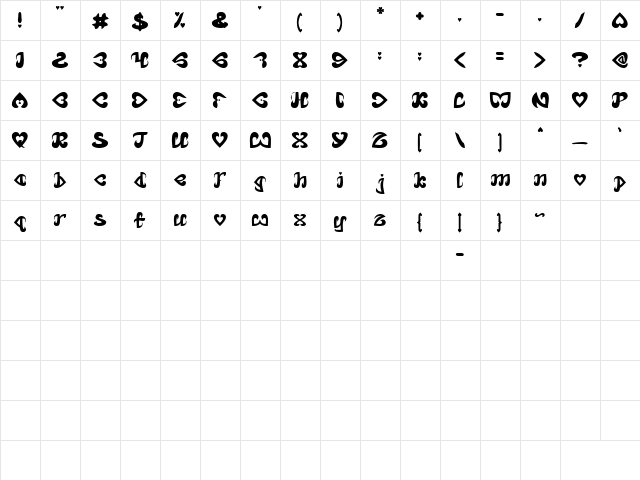
Eternal Love Regular
Design Context for Eternal Love Typeface
Eternal Love is a composed and adaptable typeface that performs quietly and consistently across a wide range of design contexts.
Pro Tip: Use Eternal Love in both headline and body roles to test its range before committing to a single application.